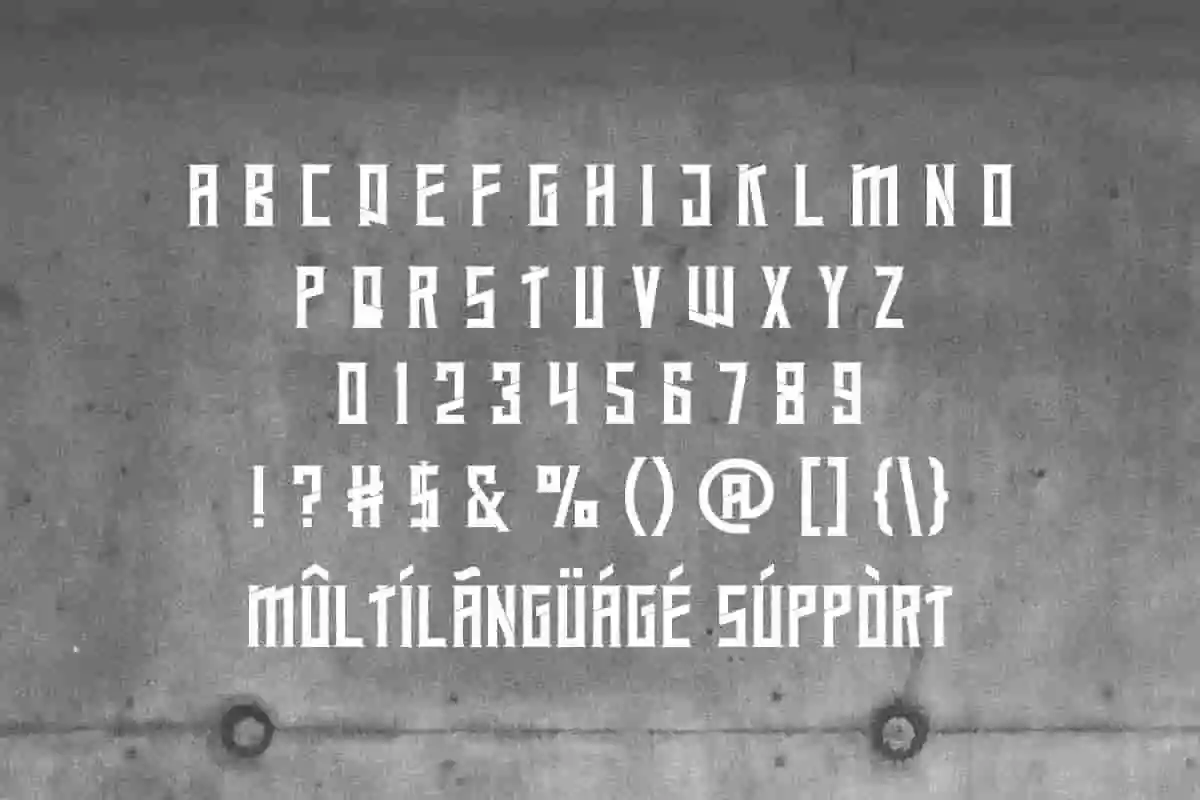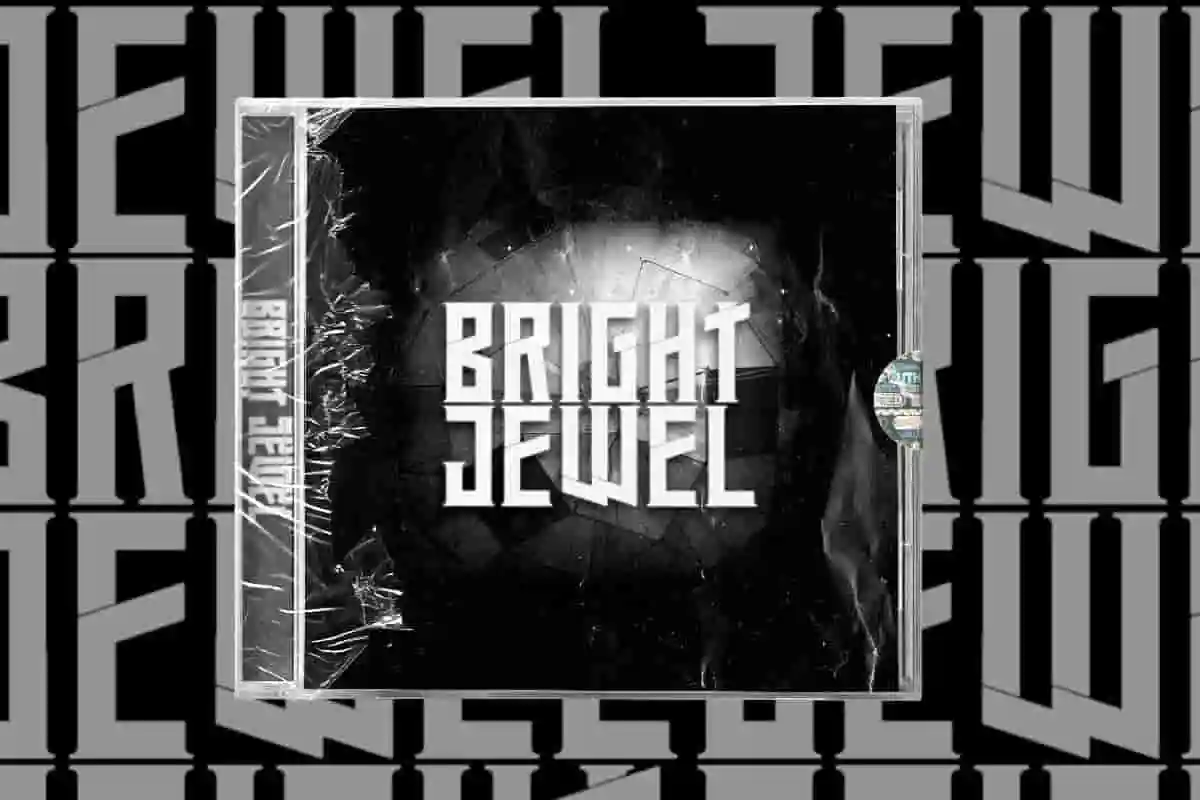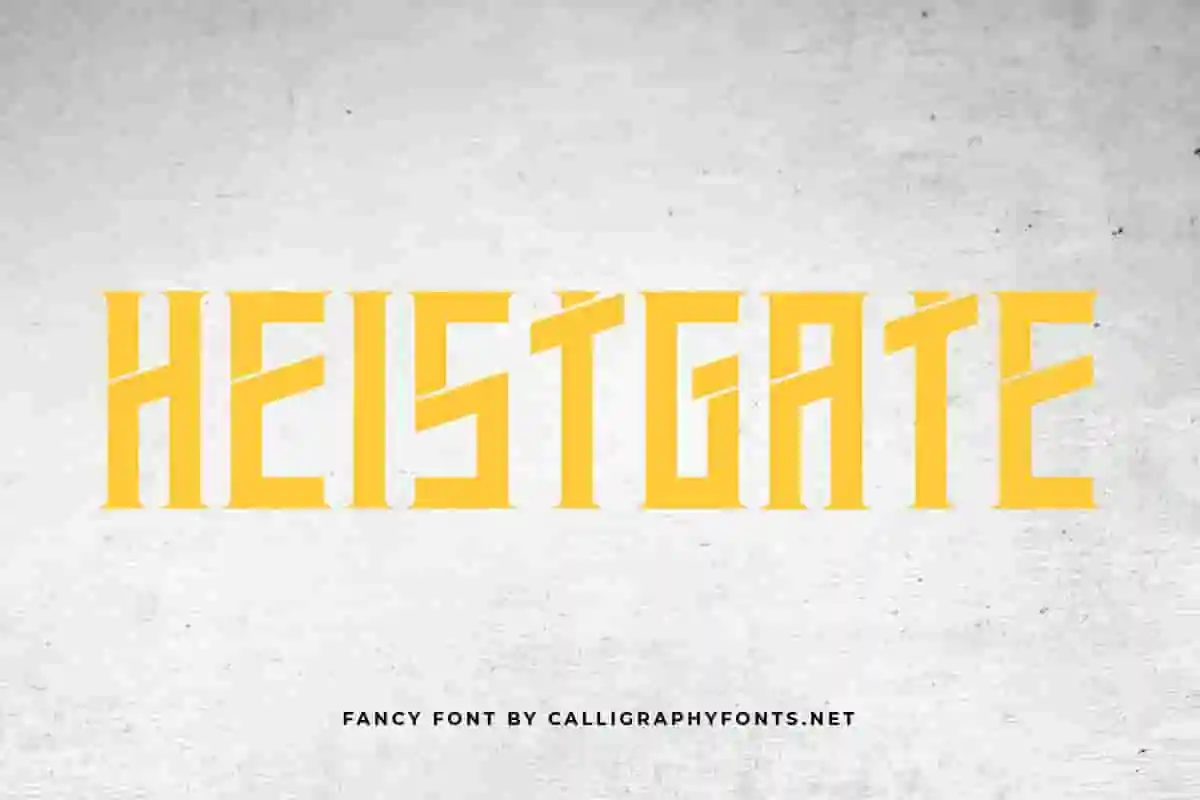
Heistgate Display Font
Heistgate Font is a sporty sans serif Display font family. The style of this font are modern, techno, strong, masculine, sporty etc. Great for logo, brandings, headlines, signage etc. Heistgate Font come with strong unique characters that will make your designs standout. The font will be awesome for many industries including : sports, techno, festival, games, movies etc
Make your designs impossible to ignore with Heistgate Display Font, a powerful and modern typeface built for impact, style, and versatility. With its bold structure, clean edges, and commanding presence, this font is perfect for projects that demand attention and authority.
Inspired by contemporary urban design and high-energy branding, Heistgate Display Font delivers a look that’s both strong and stylish. Whether you’re creating event posters, gaming titles, sports branding, or merchandise designs, this font brings an instant edge to your visuals.